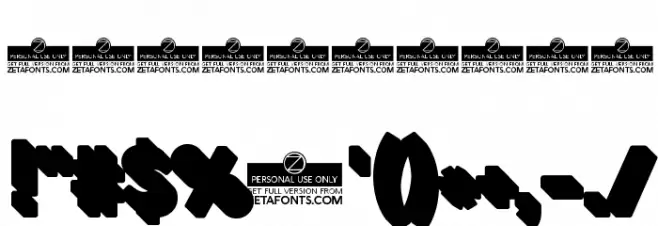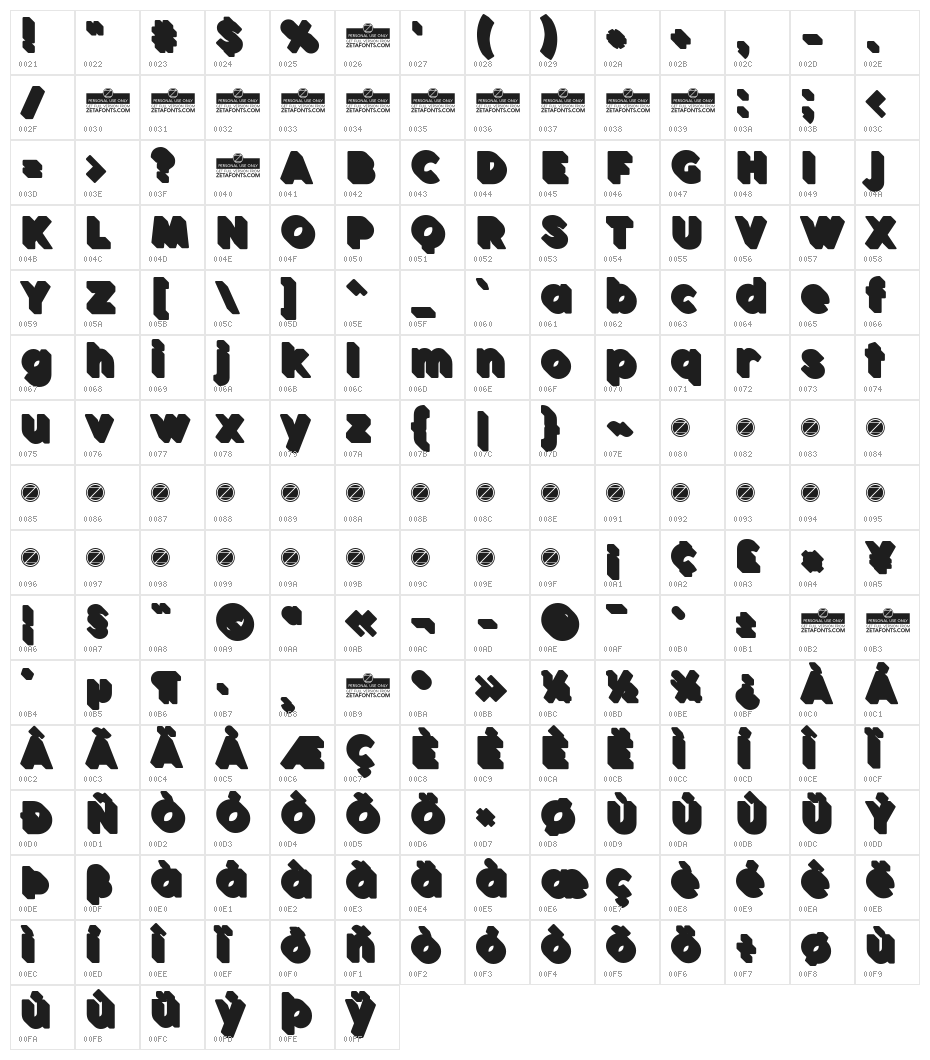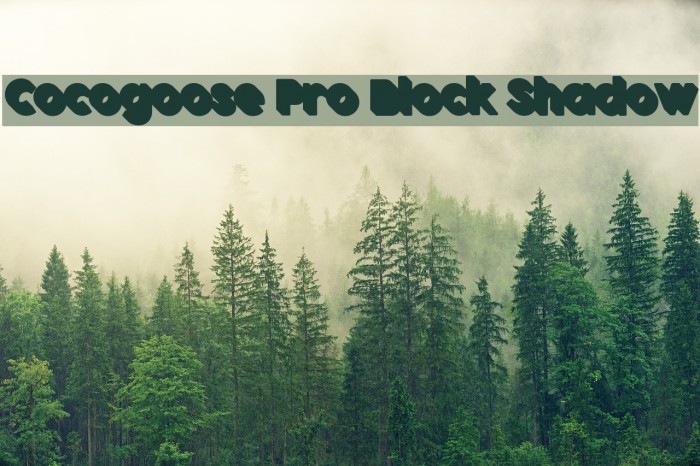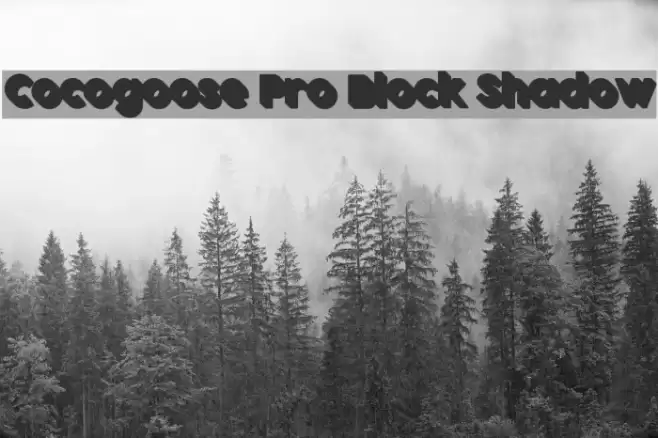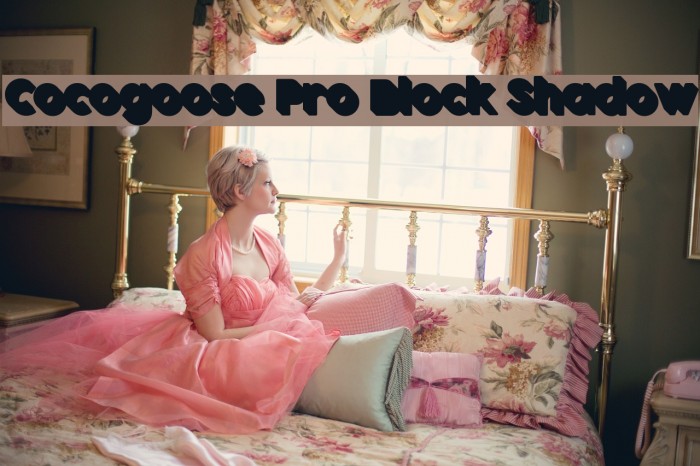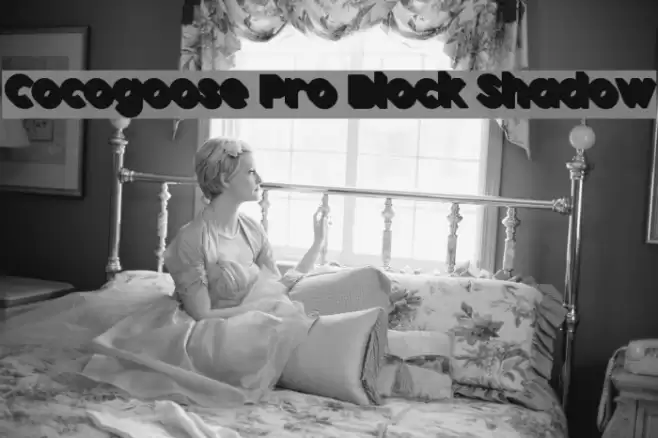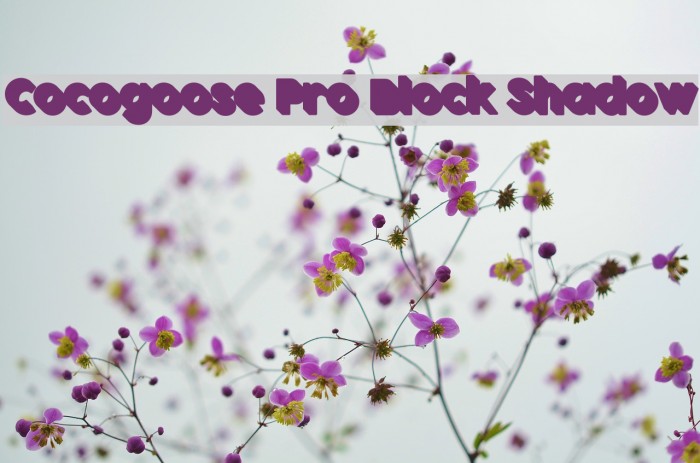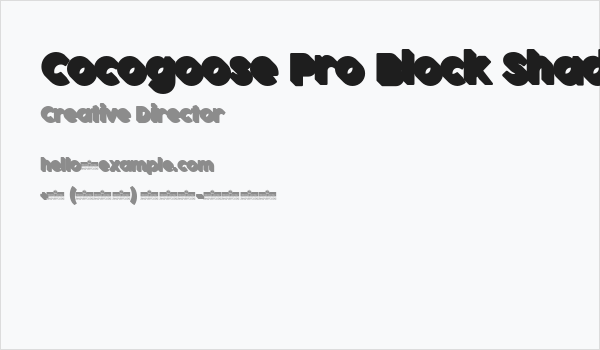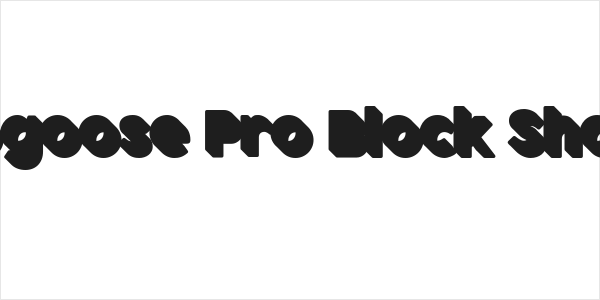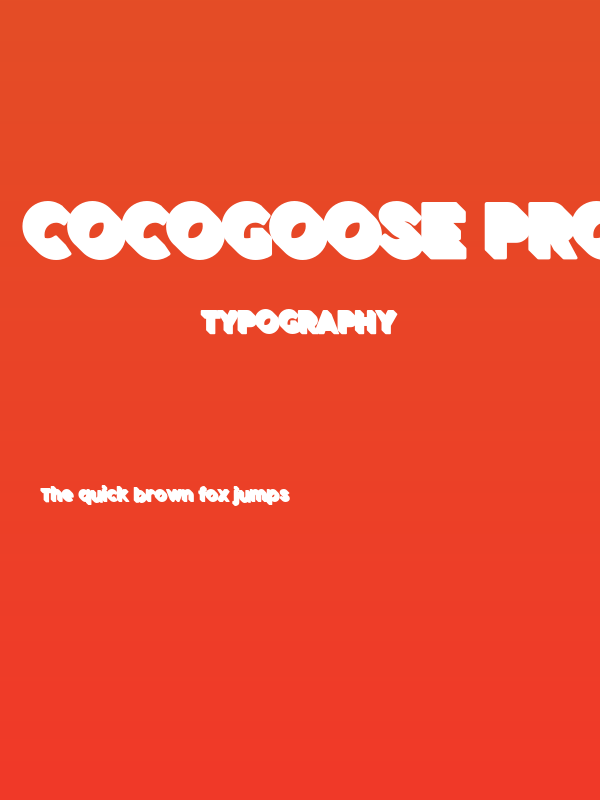
Cocogoose Pro Block Shadow Font
Cocogoose Pro Block Shadow Description
This bold and striking font features a blocky, shadowed design that commands attention. The uppercase and lowercase letters are crafted with a strong, geometric structure, giving them a modern and impactful appearance. The shadow effect adds depth and dimension, making the characters stand out prominently. The numerals and special characters maintain the same bold style, ensuring consistency across all text elements. This font is ideal for projects that require a strong visual presence and a contemporary aesthetic.
| Proposed Projects | Ideal for headlines, posters, branding, and any design needing a bold statement. |